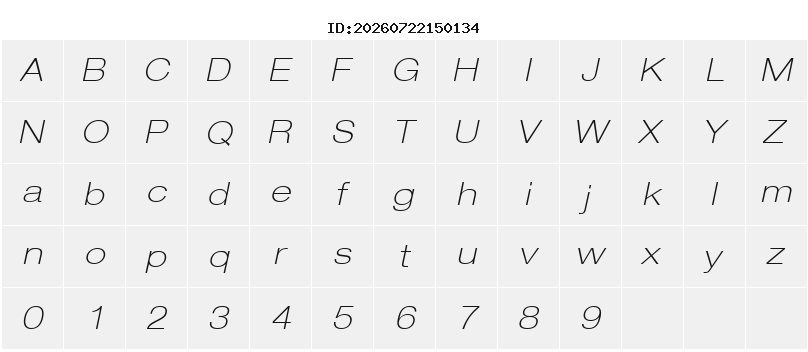
• Font Name: HelveticaNeueLT Com 33 ThEx
• Full Font Name: Helvetica Neue LT Com 33 Thin Extended Oblique
• Designer: Linotype Design Studio
• Manufacturer: Linotype GmbH
• Description: Helvetica is one of the most famous and popular typefaces in the world. It lends an air of lucid efficiency to any typographic message with its clean, no-nonsense shapes. The original typeface was called Haas Grotesk, and was designed in 1957 by Max Miedinger for the Haas'sche Schriftgiesserei (Haas Type Foundry) in Switzerland. In 1960 the name was changed to Helvetica (an adaptation of "Helvetia", the Latin name for Switzerland). Over the years, the Helvetica family was expanded to include many different weights, but these were not as well coordinated with each other as they might have been. In 1983, D. Stempel AG and Linotype re-designed and digitized Neue Helvetica and updated it into a cohesive font family. Today, the original Helvetica family consists of 34 different font weights, and the Neue Helvetica family consists of 51 font weights. The Helvetica family now forms an integral part of many digital printers and operating systems and has become a stylistic anchor in our visual culture. It is the quintessential sans serif font, timeless and neutral, and can be used for all types of communication. Helvetica World, an update to the classic Helvetica design using the OpenType font format, contains the following Microsoft code pages: 1252 Latin 1, 1250 Latin 2 Eastern, 1251 Cyrillic, 1253 Greek, 1254 Turk, 1255 Hebrew, 1256 Arabic, 1257 Windows Baltic, 1258 Windows Vietnamese, as well as a mixture of box drawing element glyphs and mathematical symbols & operators. In total, each weight of Helvetica World contains more than 1850 different glyph characters!
About HelveticaNeueLT Com 33 ThEx.ttf
HelveticaNeueLT Com 33 ThEx.ttf is a modern, elegant sans-serif font designed for ultimate readability and visual harmony. Perfect for branding, headlines, web design, and print materials.